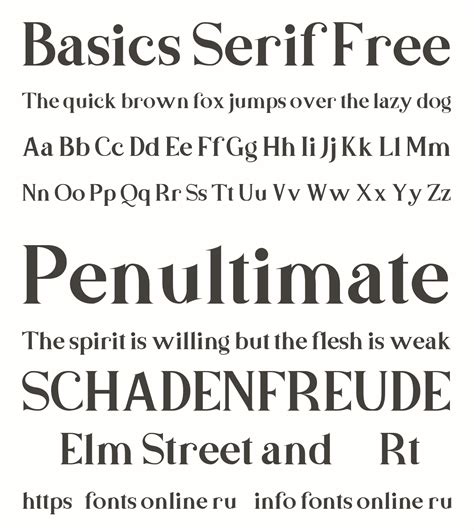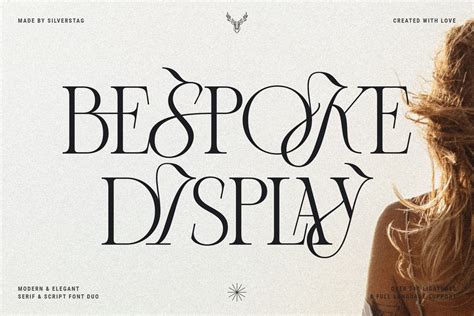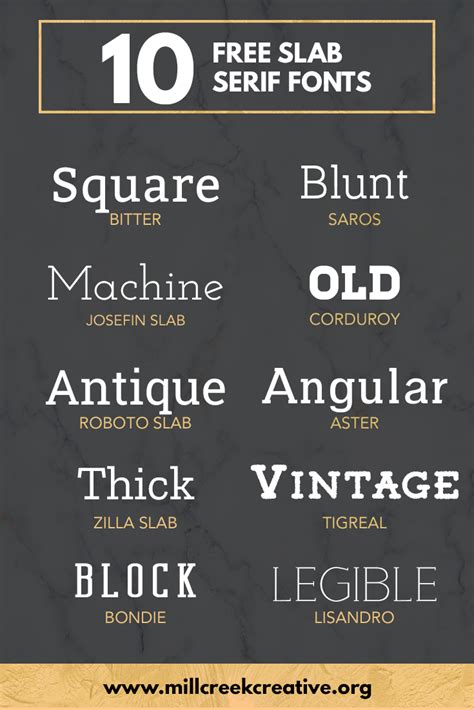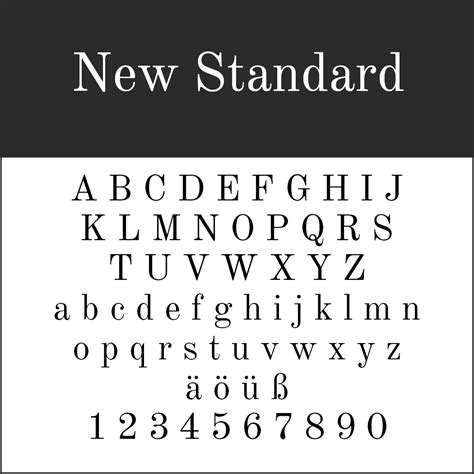
Web a serif font is a font with small strokes or extensions at the end of its longer strokes. Web here's a quick overview of four of the different types of serif fonts: Browse by alphabetical listing, by style, by author or by popularity. Old style, transitional, didone, and slab. Web either the mark or line that can sometimes appear at the end of a character’s stroke, or the collective name for typefaces that use. Serifs have their roots in ancient roman. Web making the web more beautiful, fast, and open through great typography Web archive of freely downloadable fonts.
Web either the mark or line that can sometimes appear at the end of a character’s stroke, or the collective name for typefaces that use. Web a serif font is a font with small strokes or extensions at the end of its longer strokes. Old style, transitional, didone, and slab. Web either the mark or line that can sometimes appear at the end of a character’s stroke, or the collective name for typefaces that use. Web here's a quick overview of four of the different types of serif fonts: Web making the web more beautiful, fast, and open through great typography Web archive of freely downloadable fonts. Browse by alphabetical listing, by style, by author or by popularity. Serifs have their roots in ancient roman.